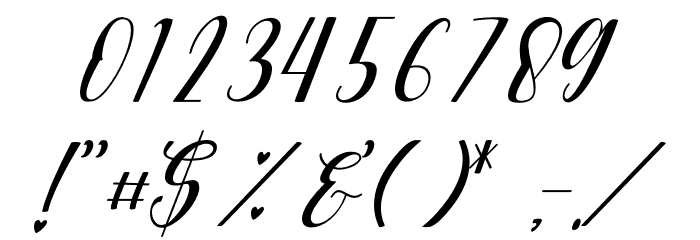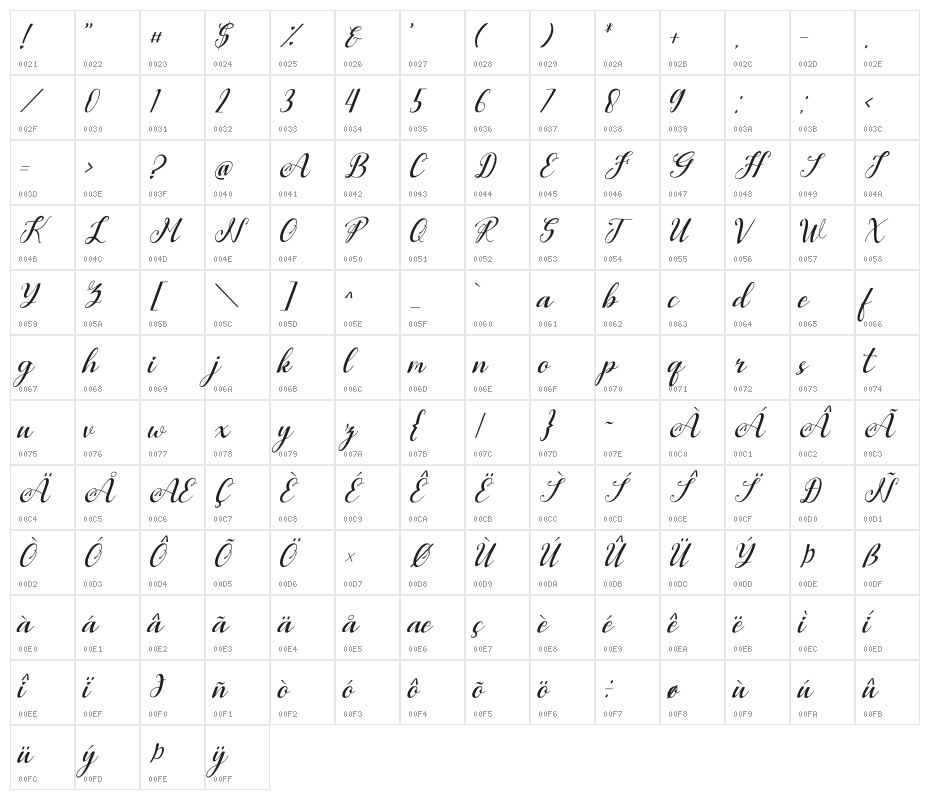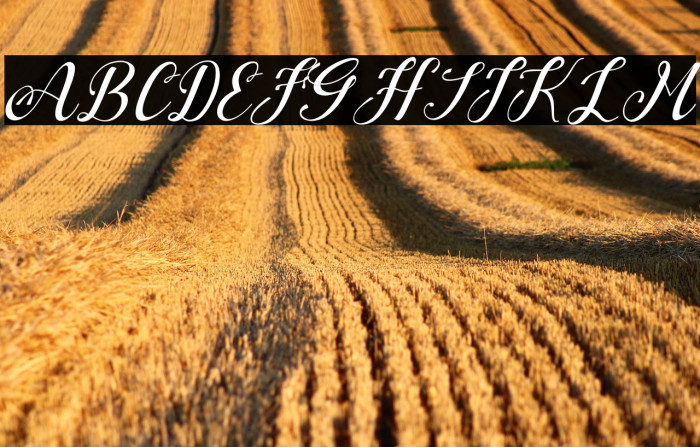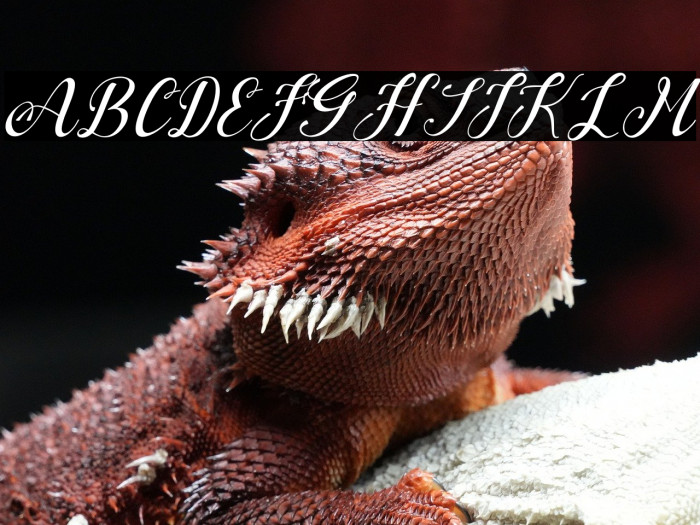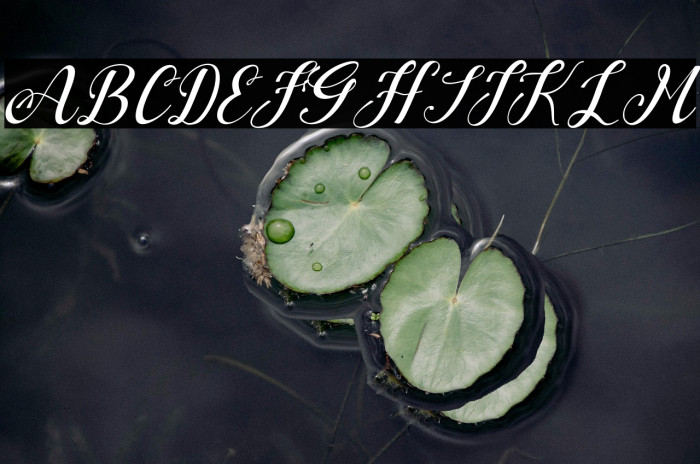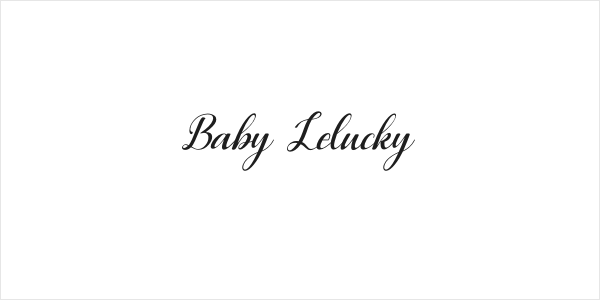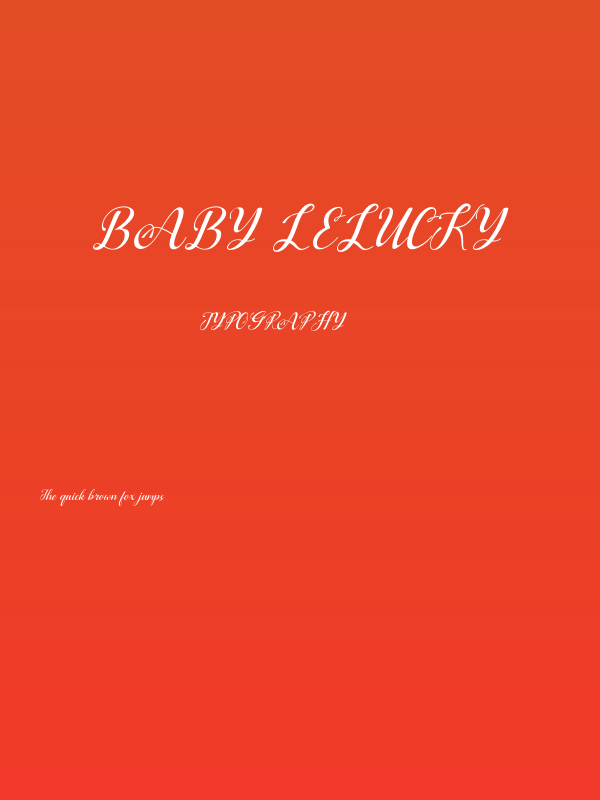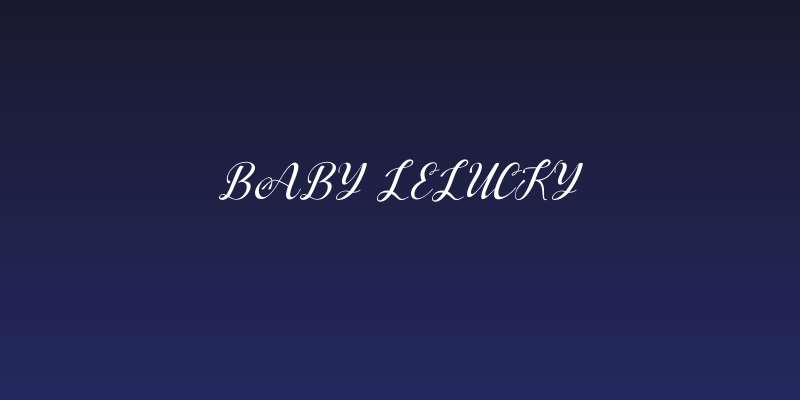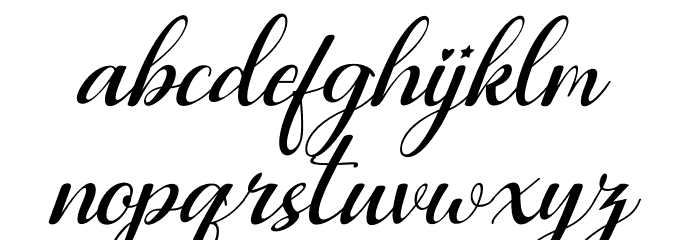
Baby Lelucky Font
Baby Lelucky Description
This elegant script font features flowing, cursive letters with a sophisticated flair. The uppercase letters are adorned with graceful loops and swashes, adding a touch of luxury and refinement. The lowercase letters maintain a consistent style, with smooth, connected strokes that enhance readability while preserving the font's decorative nature. The numerals are stylishly designed, complementing the overall aesthetic. Special characters are thoughtfully integrated, maintaining the font's cohesive look. This font exudes a sense of elegance and charm, making it ideal for formal invitations, branding, and other creative projects.
| Use Case | Headlines, Invitations, Branding |
| Proposed Projects | Ideal for wedding invitations, luxury branding, greeting cards, and elegant signage. |